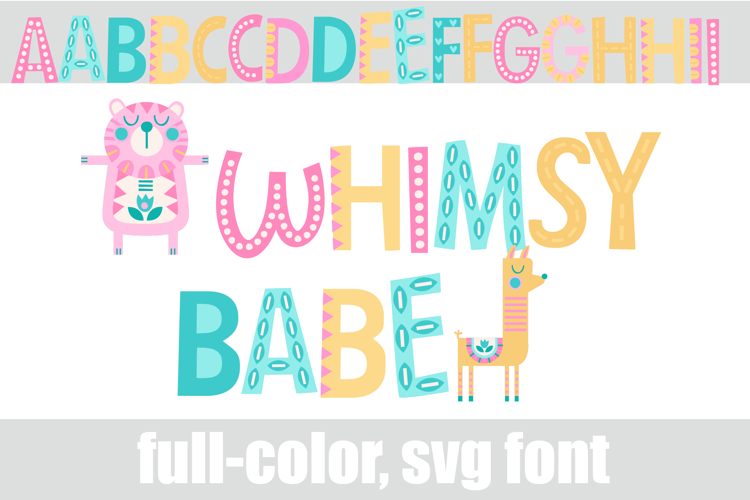
Whimsy Babe Color Font
This full-color, pastel-colored font features a youthful font style with patterns throughout. There is an alt case of each letter with a different color combination and several animal glyphs.